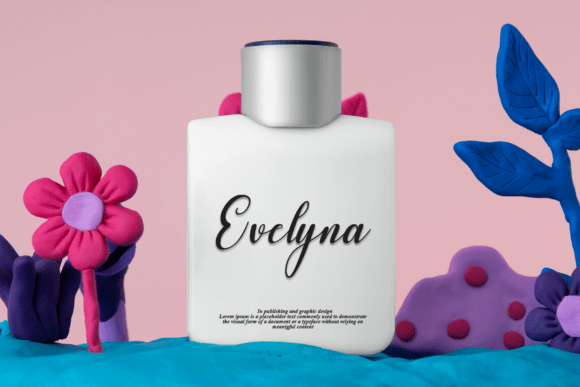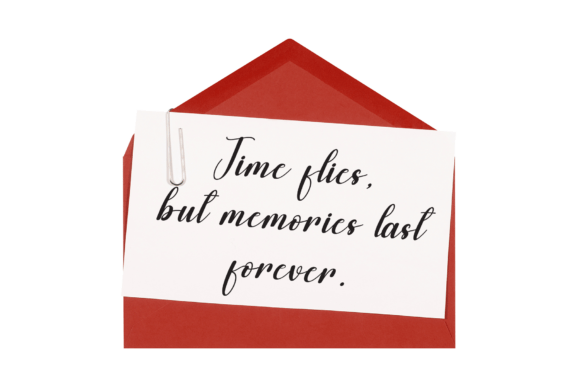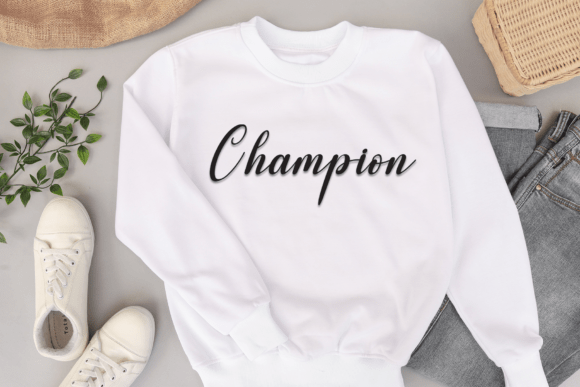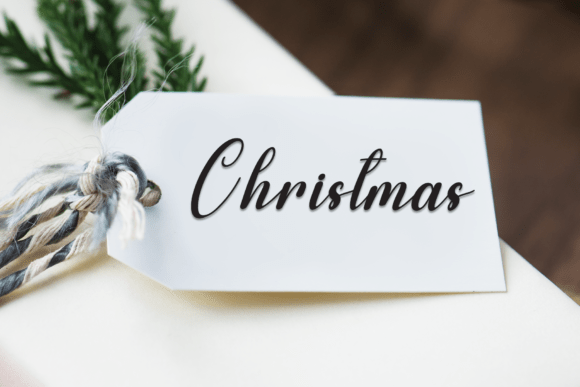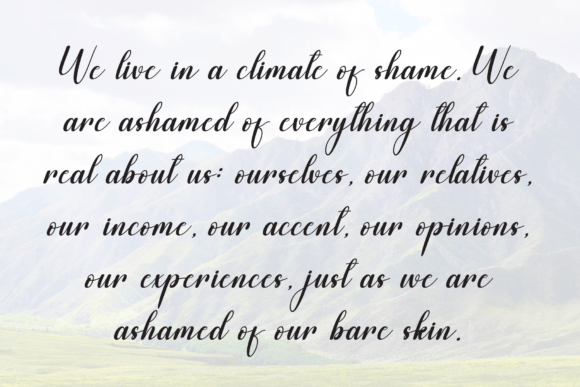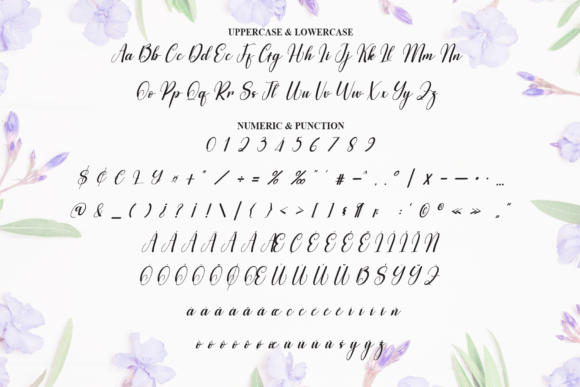
Introducing Amstay Font: Elevate Your Designs with Artistic Flair and Contemporary Elegance
In the world of typography, fonts play a crucial role in conveying the tone and personality of a design. For designers and crafters seeking to add a touch of sophistication and creativity to their projects, Amstay Font is an exceptional choice. This stylish script font is designed to exude artistic flair and contemporary elegance, making it perfect for a wide range of applications.
The Artistry of Amstay Font
Amstay Font boasts fluid brush strokes, dynamic curves, and expressive letterforms that capture the essence of hand-painted calligraphy with a modern twist. The font’s natural flow and vibrant character make it an excellent choice for designs that require a creative and sophisticated touch. Whether you’re working on logos, invitations, packaging, or social media graphics, Amstay Font delivers both visual impact and versatility.
Key Features of Amstay Font
- Fluid Brush Strokes: Amstay Font features fluid brush strokes that give it a hand-painted, organic feel. This characteristic makes it perfect for designs that require a personal and artistic touch.
- Dynamic Curves: The font’s dynamic curves add a level of sophistication and elegance, making it suitable for high-end designs and luxury brands.
- Expressive Letterforms: Each letterform in Amstay Font is carefully crafted to convey a sense of creativity and playfulness, making it ideal for designs that require a touch of whimsy.
- Modern Twist: Amstay Font brings a modern twist to traditional hand-painted calligraphy, making it perfect for contemporary designs and modern brands.
Amstay Font is an incredibly versatile font that can be used in a wide range of design applications, including:
- Logos: Create a lasting impression with a custom logo that showcases your brand’s personality and style.
- Invitations: Add a touch of elegance and sophistication to your invitations, making them perfect for weddings, parties, and other special events.
- Packaging: Elevate your product packaging with Amstay Font, making it stand out on store shelves and online.
- Social Media Graphics: Create engaging social media graphics that showcase your brand’s personality and style, helping you to build a strong online presence.
Why Choose Amstay Font?
With so many fonts available, why choose Amstay Font? Here are just a few reasons why designers and crafters love this stylish script font:
- Unique and Creative: Amstay Font offers a unique and creative way to express your brand’s personality and style.
- Highly Versatile: The font’s versatility makes it perfect for a wide range of design applications, from logos to social media graphics.
- Elegant and Sophisticated: Amstay Font adds a touch of elegance and sophistication to any design, making it perfect for high-end brands and luxury products.
In conclusion, Amstay Font is an exceptional choice for designers and crafters seeking to add a touch of artistic flair and contemporary elegance to their designs. With its fluid brush strokes, dynamic curves, and expressive letterforms, this stylish script font delivers both visual impact and versatility. Whether you’re working on logos, invitations, packaging, or social media graphics, Amstay Font is the perfect choice for creating stunning designs that showcase your brand’s personality and style.